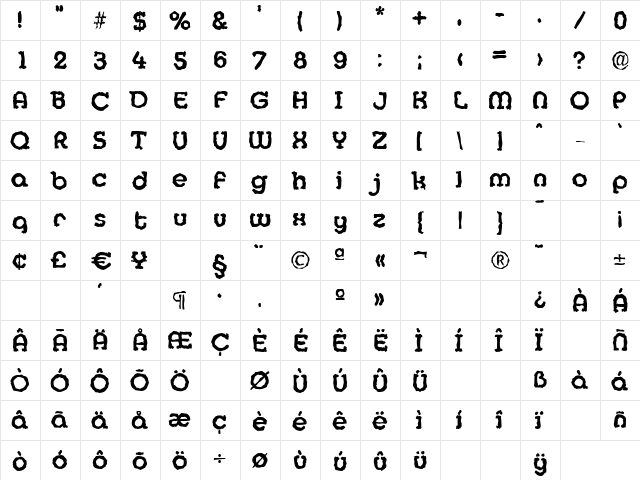
MexicoRandom Bold
Design Context for MexicoRandom Typeface
MexicoRandom takes a measured approach to typography — its balanced proportions and neutral character make it a reliable workhorse for both digital and print work. The heavy weight commands attention and anchors typographic hierarchies.